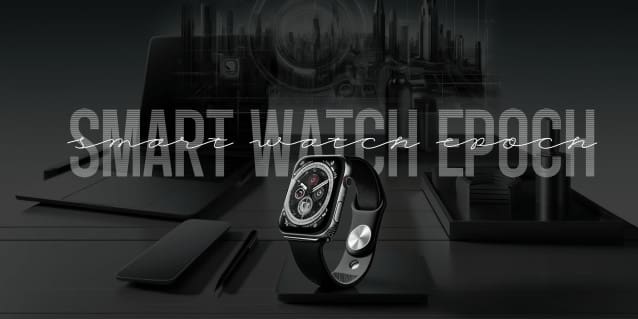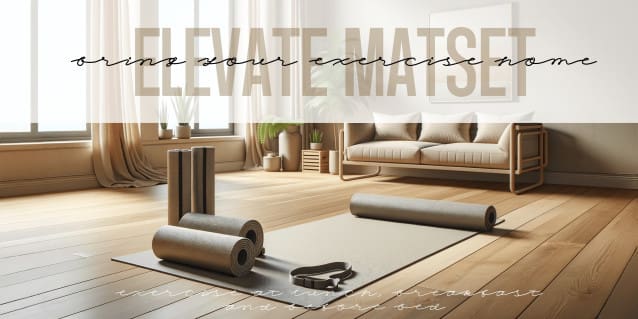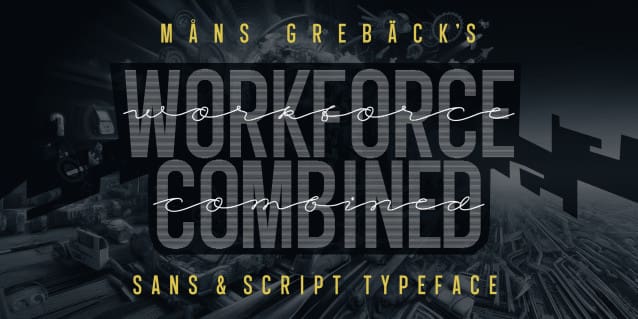
Workforce Combine Font
Workforce Combine Font is an striking blend of modern script and sans-serif lettering. A typeface made for logos and graphic design projects intended to leave a lasting impression.